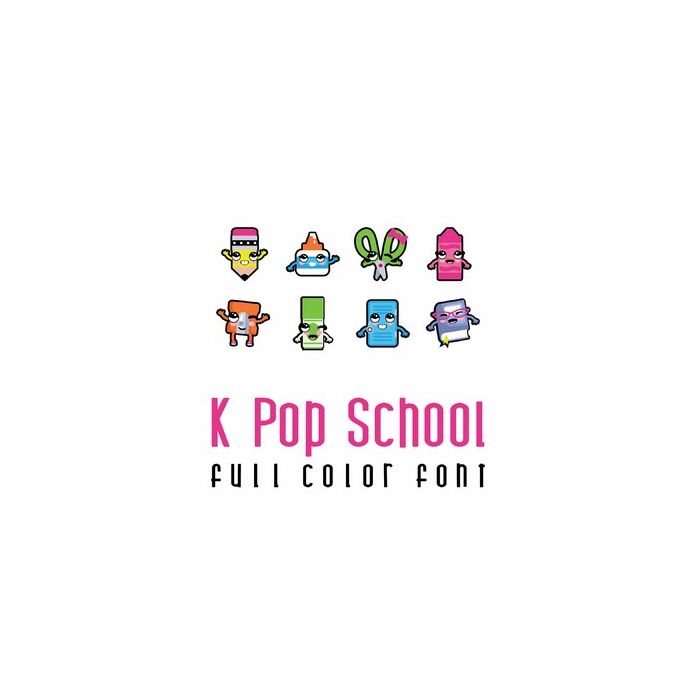
This adorable full color doodlebat font features k-pop inspired school supplies. Perfect for cards, crafts, gifts, decor, scrap book pages, planner stickers and more!